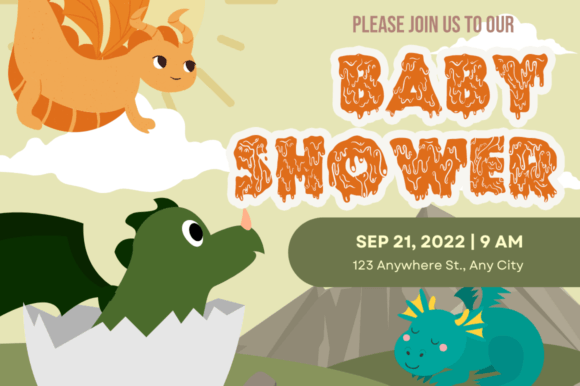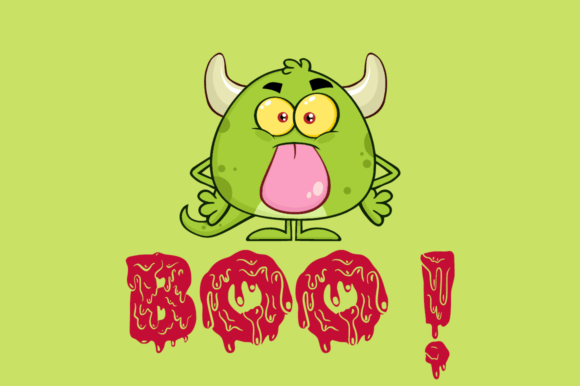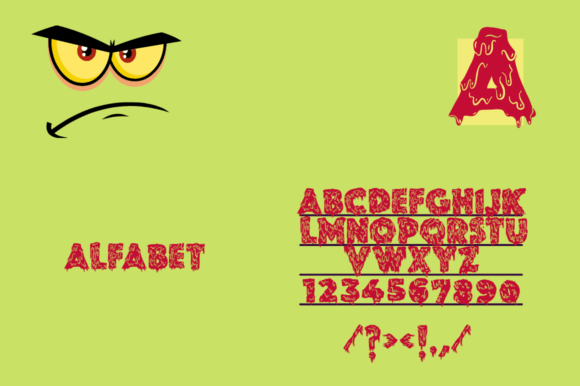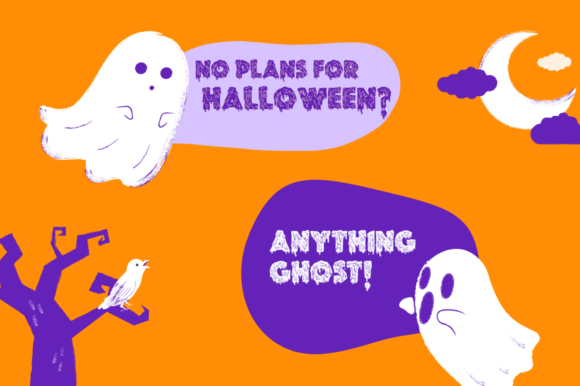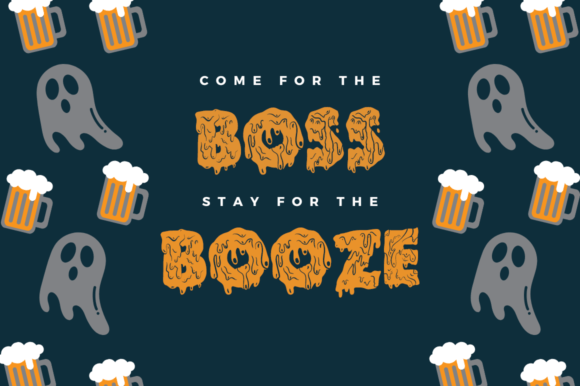
Introduction to Monster Blood Font
Have you ever stared at a blank design canvas, struggling to find the perfect font to bring your creative project to life? That was me just last Halloween, trying to create a spooky atmosphere for a friend’s haunted house party. I scoured the web for the perfect font, but nothing seemed to capture the essence of the season. That’s when I stumbled upon the Monster Blood Font – a game-changing design resource that would change the way I approach horror-themed designs forever.
As a designer, I can attest to the value of having high-quality, versatile fonts in your toolkit. And the Monster Blood Font is no exception. With its eerie, hand-drawn style and transparent background, this font is a must-have for any design project that needs a touch of the macabre.
Key Features of Monster Blood Font
• Unique and Creative Design: Monster Blood Font is a one-of-a-kind design resource perfect for adding a touch of eeriness to any creative project.
• Transparent Background: This font features a transparent background, allowing for easy customization and layering in your design.
• Perfect for Horror and Fantasy Themes: Monster Blood Font is specifically designed to evoke a sense of eeriness and foreboding, making it ideal for horror and fantasy-themed projects.
Honest Review: Monster Blood Font
As a designer, I’m always on the lookout for unique and high-quality fonts to add some extra flair to my creative projects. I recently had the chance to try out the Monster Blood Font, and I’m here to share my honest thoughts.
• ✨ Unique and quirky design that adds a touch of personality to any project.
• ✨ High-quality font files with transparent background options, making it easy to integrate into various design contexts.
• ⚠️ Limited character set, which may not be ideal for projects requiring extensive typography.
• ⚠️ Not suitable for body text, as it’s best used for headlines or titles due to its bold and attention-grabbing nature.
Overall, the Monster Blood Font is a great addition to any designer’s toolkit, especially for creative projects that require a unique and eye-catching font. While it may have some limitations, its high-quality design and free download make it a worthwhile resource for designers looking to add some personality to their work.
Tips for Getting the Most Out of Monster Blood Font
Use Monster Blood Font with a transparent background to create a unique and eye-catching design. Experiment with different font sizes and styles to add depth and interest to your creative project.
Monster Blood Font is ideal for use in horror-themed designs, such as posters, flyers, and social media graphics. It’s also great for adding a touch of whimsy to your design resource, making it perfect for use in children’s book covers, party invitations, and more. With its high-quality design and free download, Monster Blood Font is a must-have for any creative project.